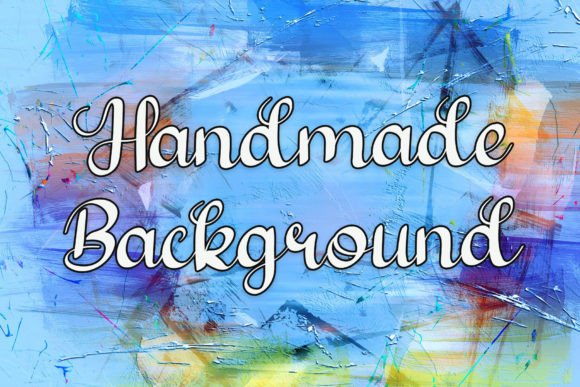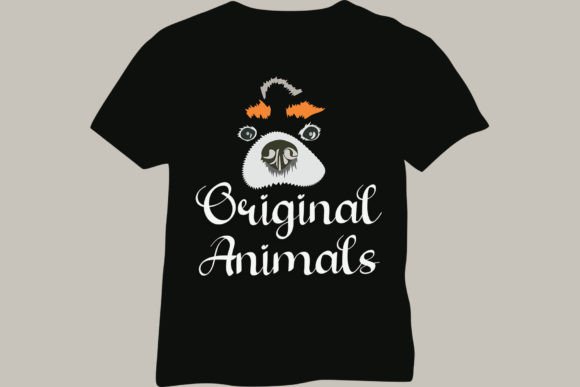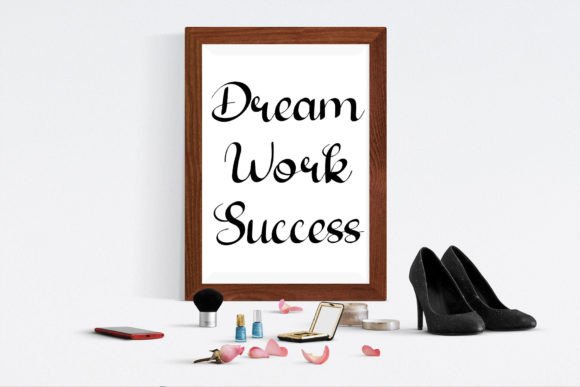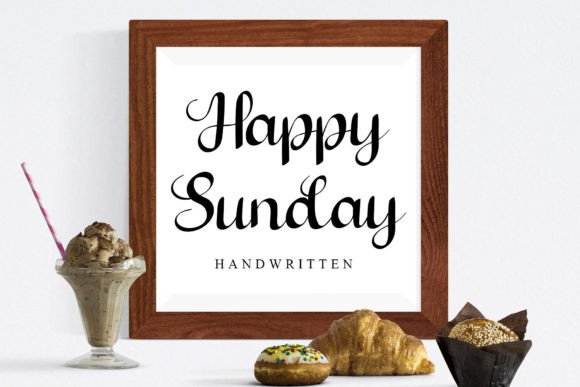
Handmade Background Font
About Handmade Background Font
Handmade Background Font is a charming handwritten script that combines elegance with a timeless handwritten feel. With stylish strokes and refined details, this typeface adds personality and sophistication to any project. Because of its versatile design, Handmade Background Font is perfect for wedding invitations, thank-you cards, quotes, and branding projects.
An Elegant Handwritten Typeface with Style
Handwritten fonts often bring authenticity, and Handmade Background Font takes that to the next level with its delicate flow. Its graceful lines balance beauty with readability, making it adaptable to both modern and traditional layouts. Moreover, its detailed design makes it suitable for projects that require sophistication and warmth. As a result, this typeface is an excellent choice for creatives who want elegance in their work.
Wedding stationery and personal cards look stunning when designed with Handmade Background Font. For example, it can turn a simple wedding invitation into a keepsake filled with charm. In addition, it works wonderfully for thank-you notes, seasonal greetings, and birthday cards. Because of its refined structure, every design feels heartfelt and memorable.
A Script Typeface for Logos and Branding
Brands and professionals seeking sophistication can rely on Handmade Background Font to elevate their visual identity. Logos, product packaging, and business cards look stylish and unique when created with this handwritten script. Furthermore, on social media, it brings personality and elegance to posts, stories, and promotional content. Paired with clean sans serif fonts, Handmade Background Font achieves balance between creativity and professionalism.
Another strength of Handmade BackgroundFont is its adaptability across different mediums. In print, it enhances posters, brochures, magazines, and merchandise. Digitally, it elevates websites, blogs, and presentations with its polished appearance. Since it maintains legibility across both small and large sizes, this handwritten script is reliable for diverse design applications.